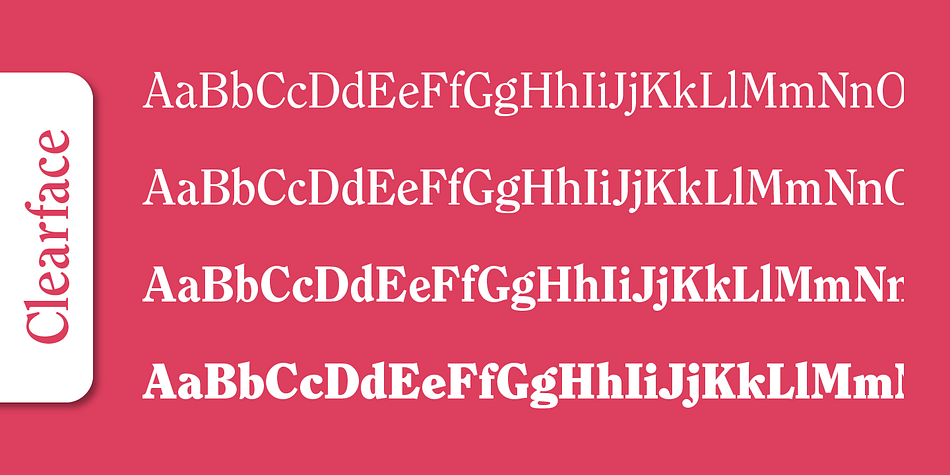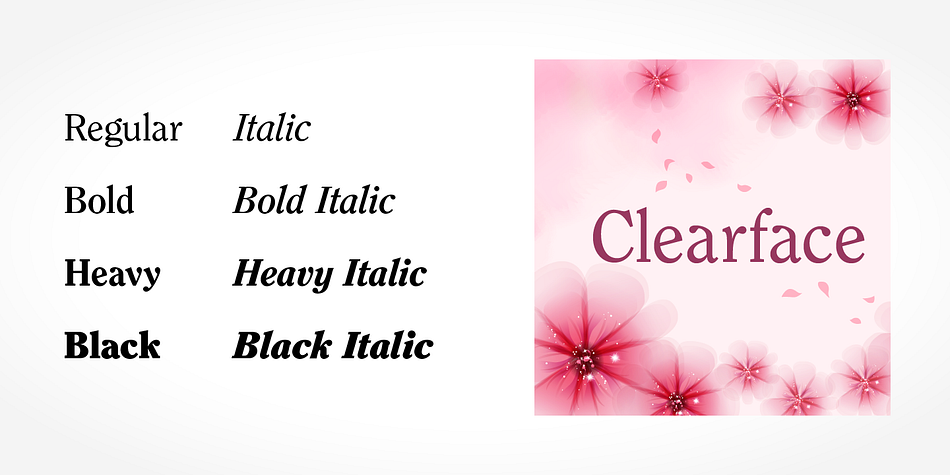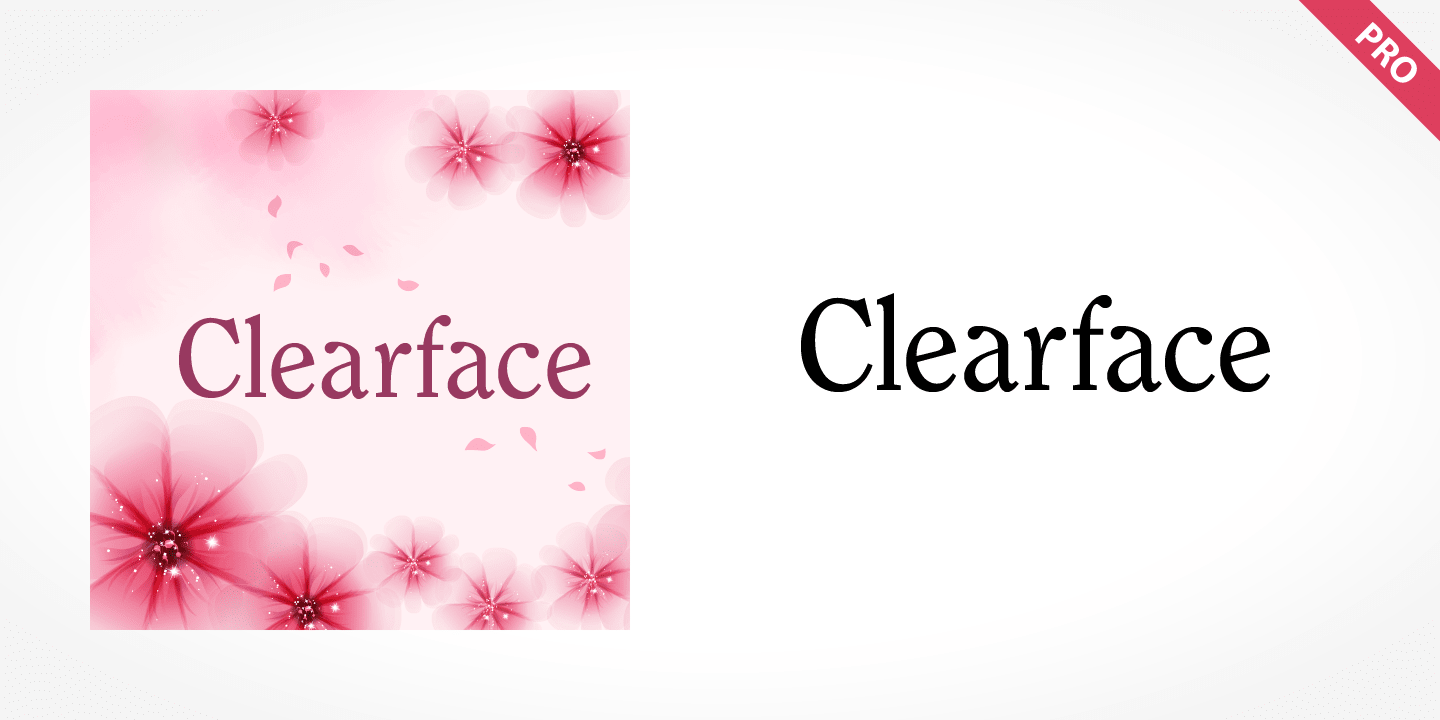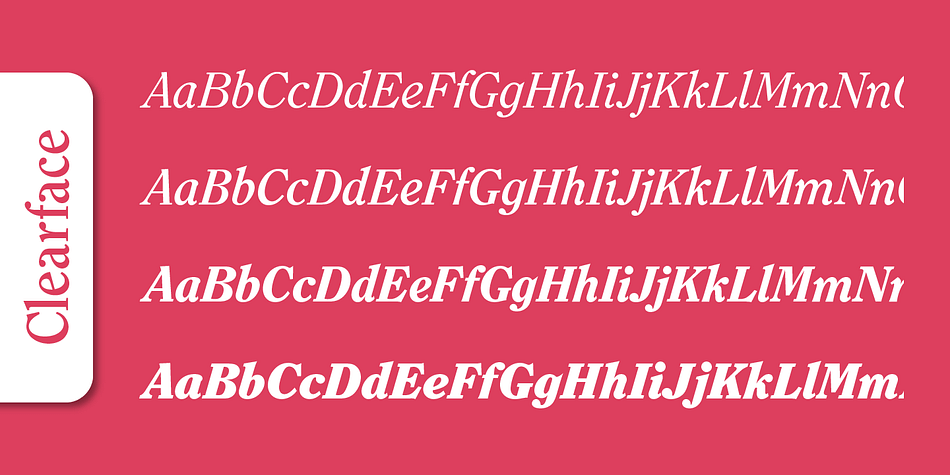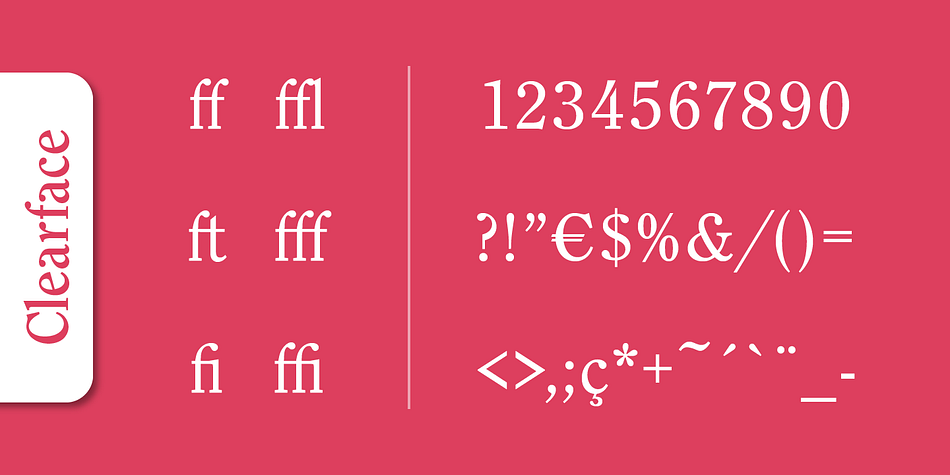
Clearface Pro
Clearface Pro is a serif font family. This typeface has eight styles and was published by SoftMaker.
Clearface’s forms expressed the Zeitgeist of the turn of the 20th century; typical and distinguishing characteristics are the forms of the a”” and the ““k.”“